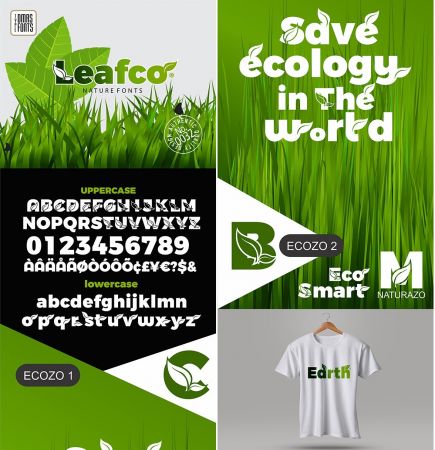
LEAFCO is a type of font Nature Decorative. Leafco fonts include a full set of large and small letters as well as multi-lingual and currency support, numbers, punctuation, alternatives, binders and some additional glyphs.